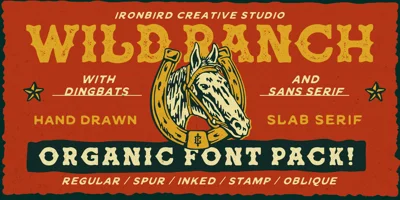
Wild Ranch Font
This rugged typeface excels in western-themed restaurant branding, country music venue signage, rodeo event posters, ranch property marketing, cowboy merchandise design, barbecue joint materials, outdoor adventure campaigns, and frontier-style communications. Its untamed character makes it perfect for projects requiring authentic western spirit and ranch-style authenticity.
Wild Ranch Font generates excitement through its frontier boldness that captures the untamed spirit of the American West and ranch lifestyle freedom. The font's weathered strokes and saddle-worn letterforms create an atmosphere of authentic wilderness that resonates with audiences seeking adventure experiences and western authenticity. Its ruggedly crafted character variations deliver campfire-ready readability while maintaining distinctive frontier personality that reflects the independence of ranch living and the transformative power of wide-open spaces and cowboy culture.
The Wild Ranch Font family includes multiple western variations such as regular, weathered, bold, rope, and branded styles. Each family member maintains the distinctive ranch aesthetic while offering different levels of frontier sophistication for various western applications. This untamed collection allows designers to create adventurous compositions that celebrate the full spectrum of ranch experiences from quiet prairie sunsets to wild rodeo excitement.
The Wild Ranch Font offers designers access to premium western typography that brings authentic frontier spirit to any project. Its rugged character and ranch appeal make it ideal for creating memorable western brands and engaging cowboy communications that inspire adventure. Whether developing ranch business identities, designing western materials, or crafting frontier marketing campaigns, this font provides the western authenticity and ranch spirit essential for connecting with audiences who appreciate cowboy culture, seek outdoor adventures, and embrace the freedom and independence of wild ranch living and frontier heritage.